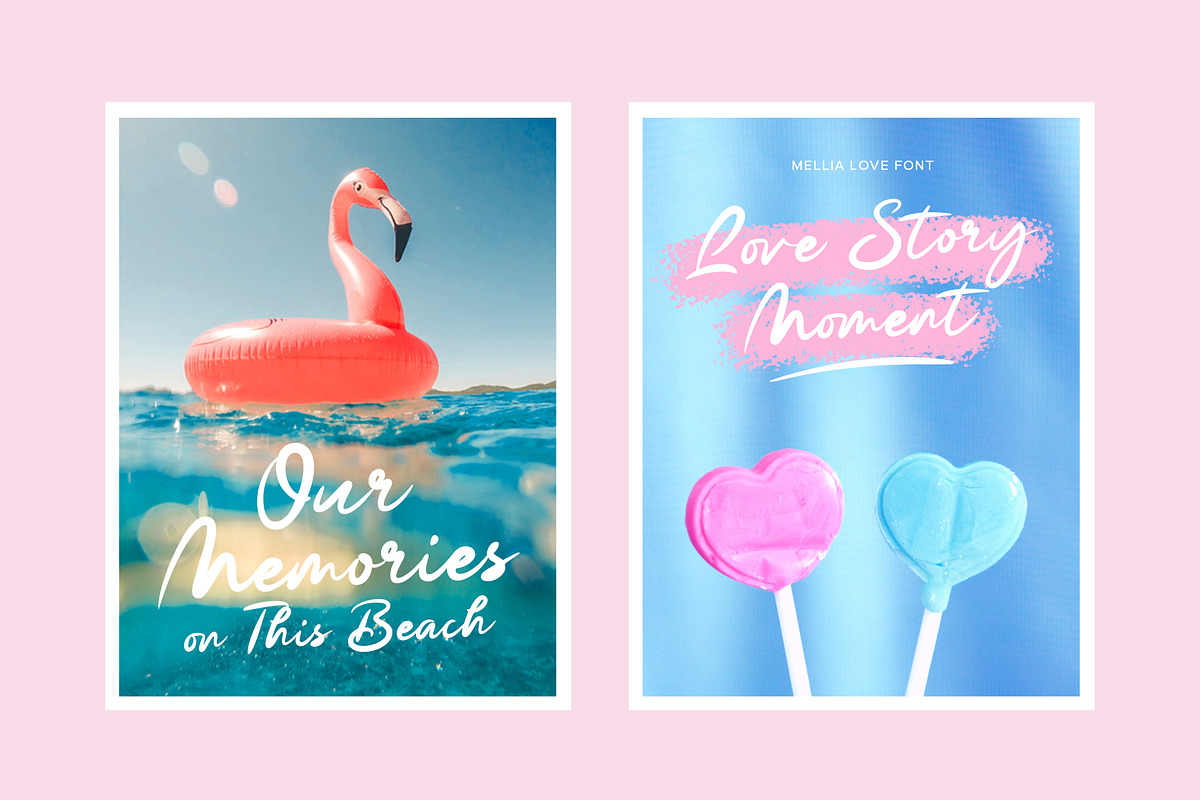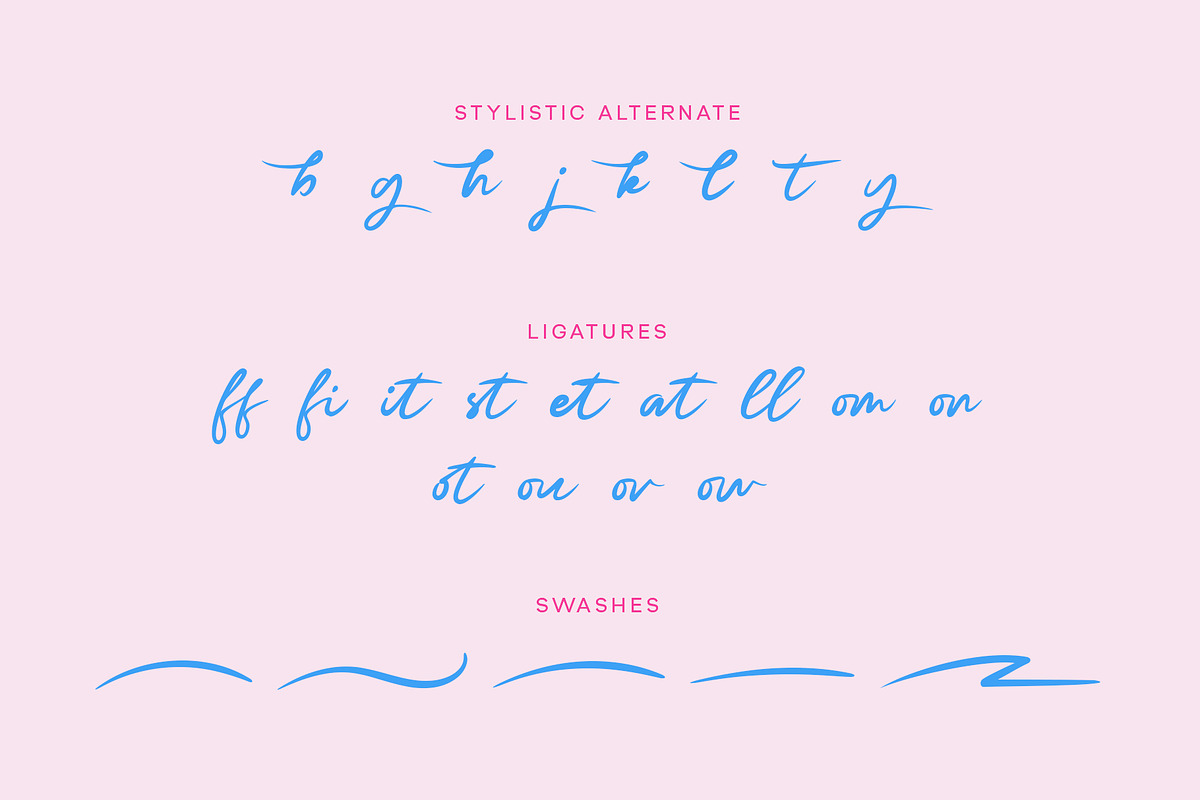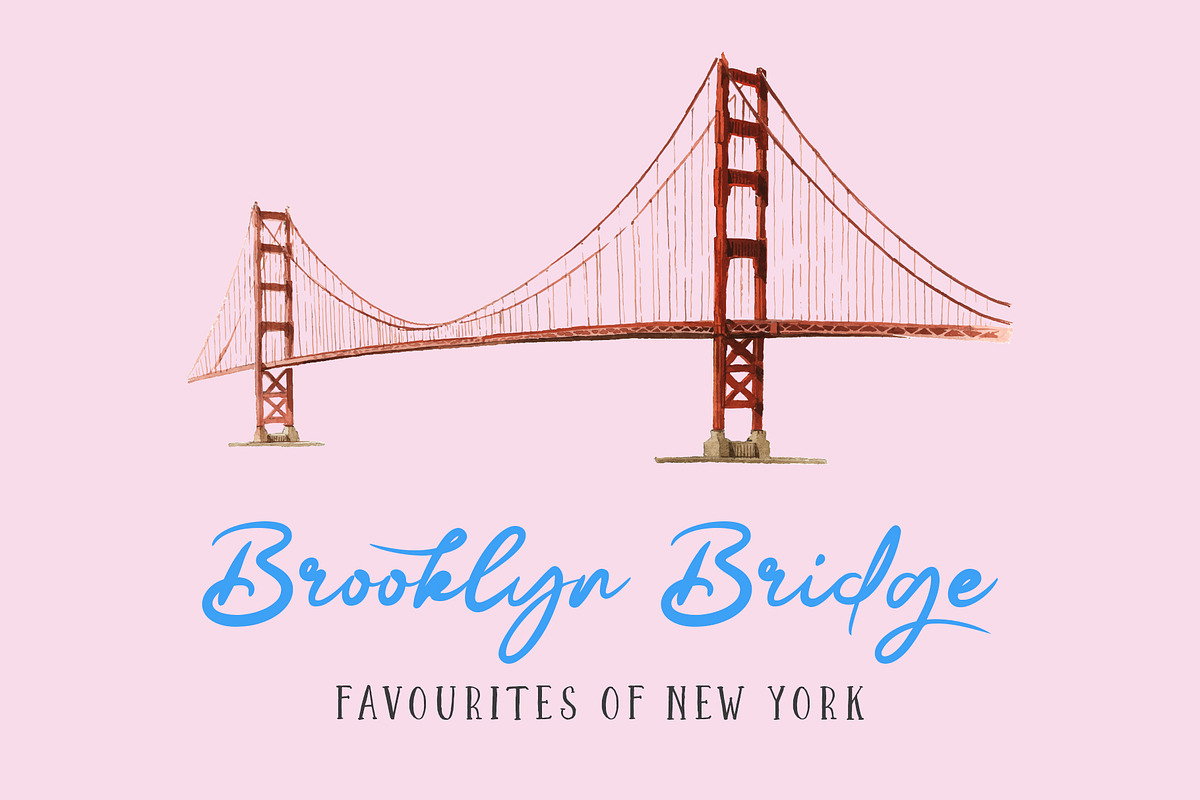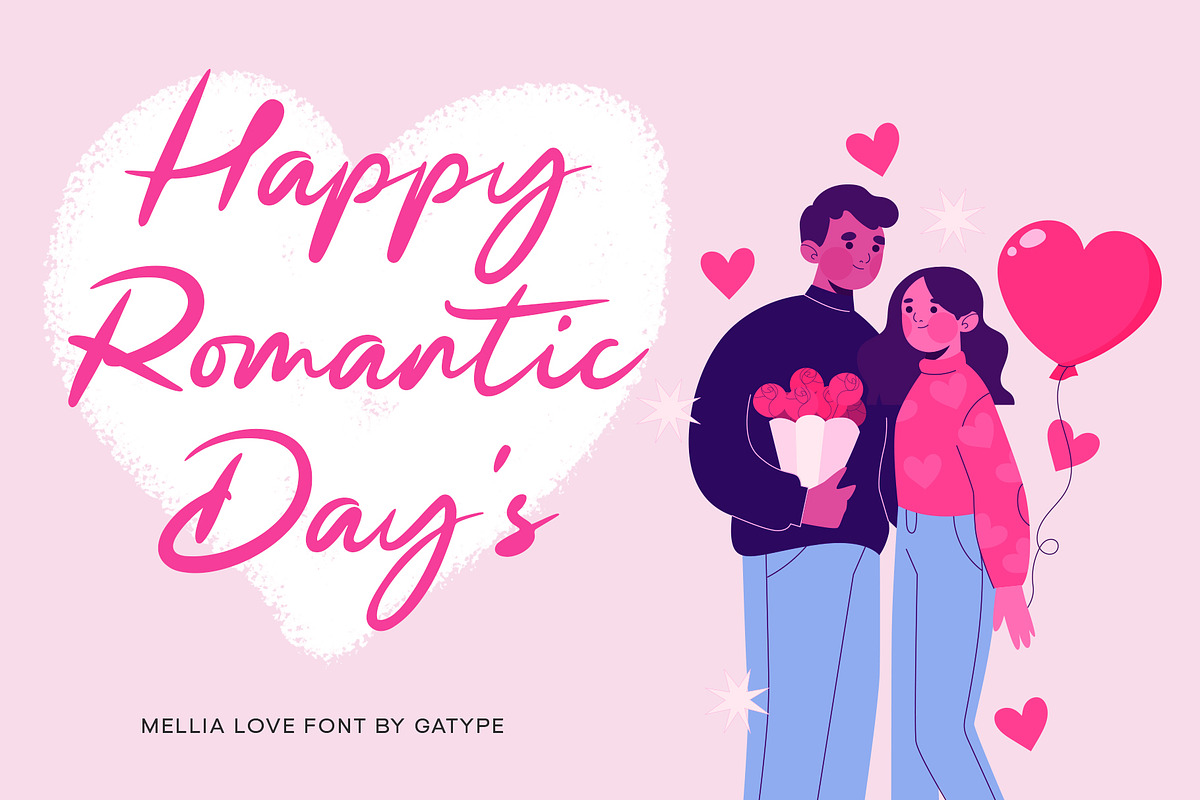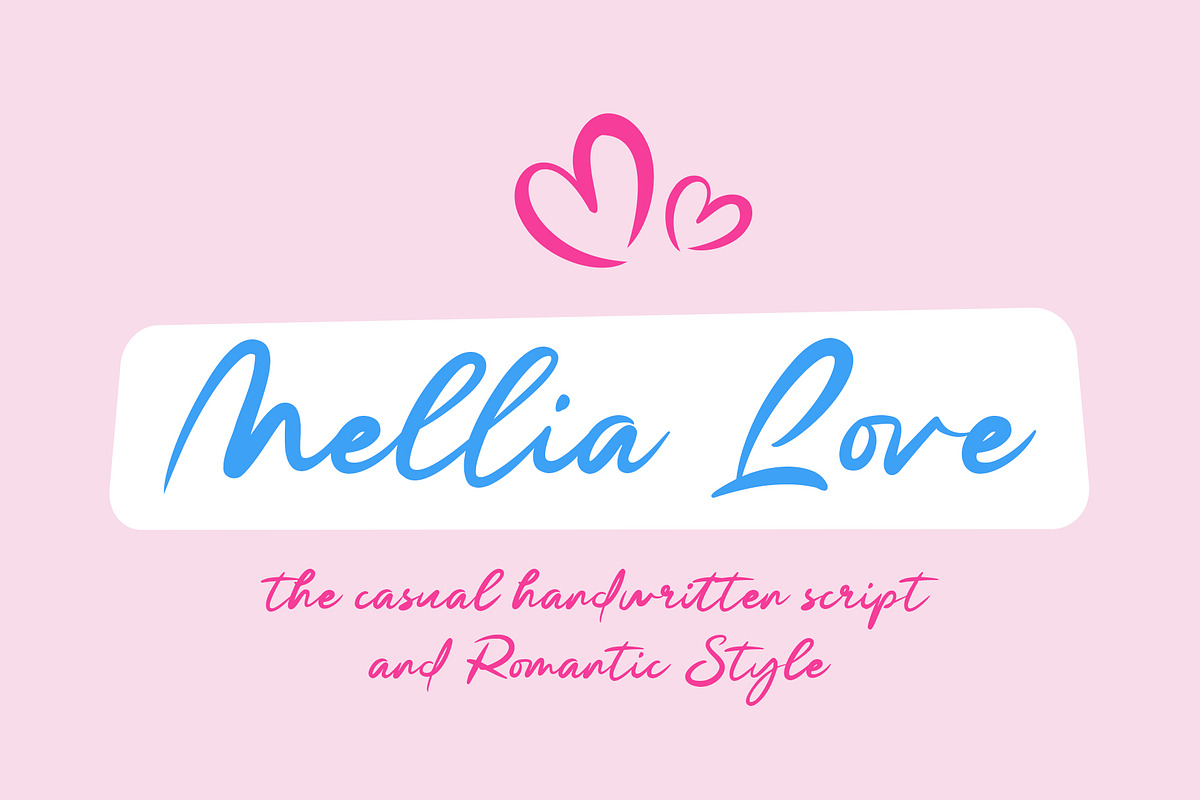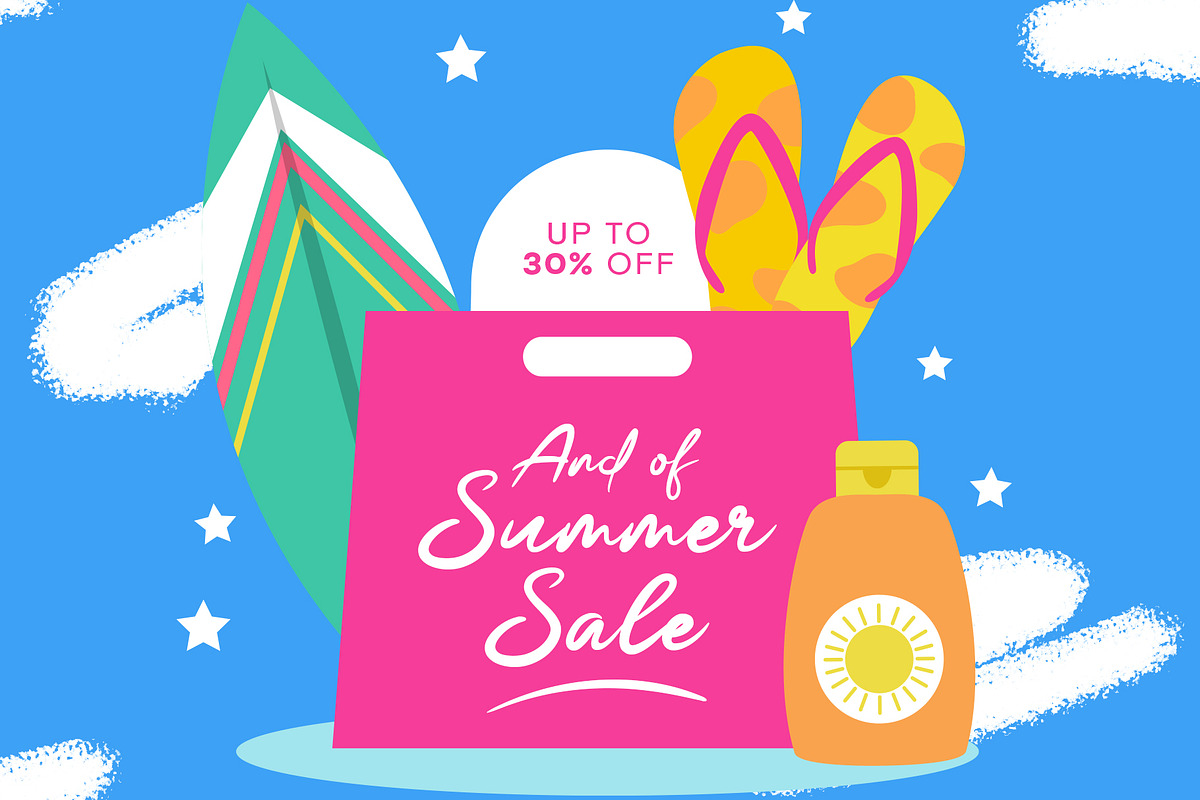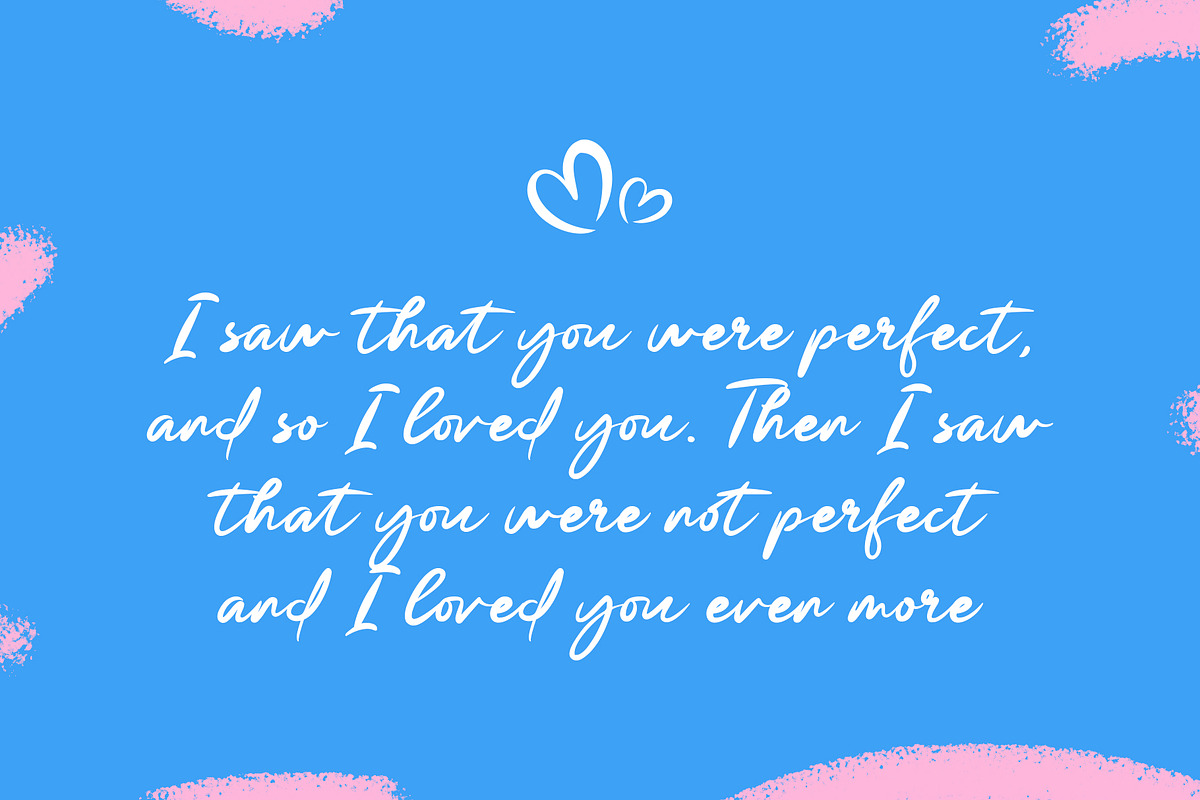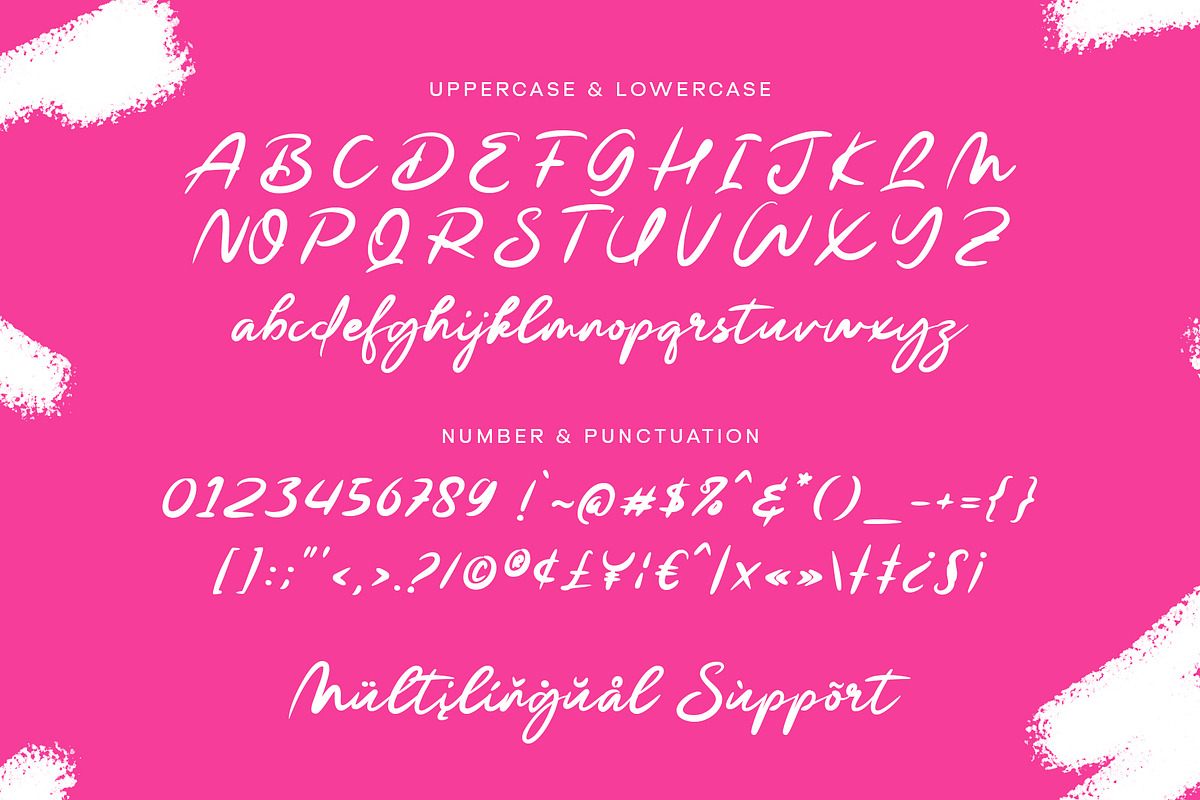
Mellia Love
The perfect choice for modern handwritten lettering in the 2025 Wedding Season.
The Mellia Love font will look beautiful on handwritten wedding invitations, menus, modern wall art, instagram posts, quotes, and branding. Mellia Love includes a full set of Uppercase and Lowercase Basic Characters, Numbers, Punctuation, alternate sets and ligatures.